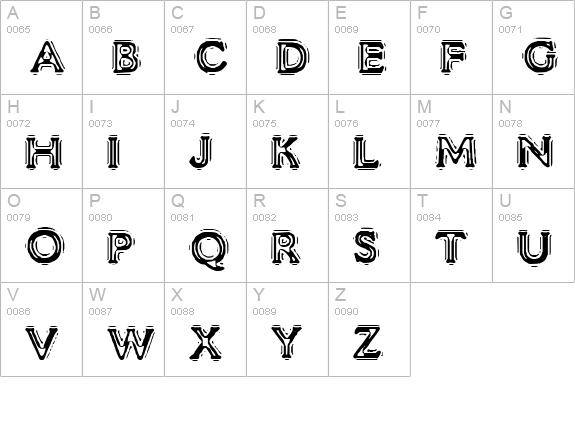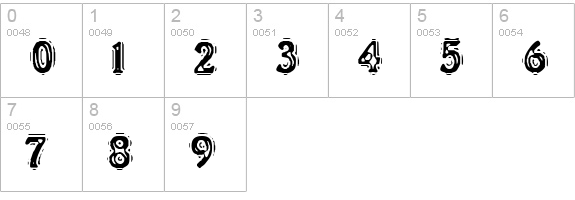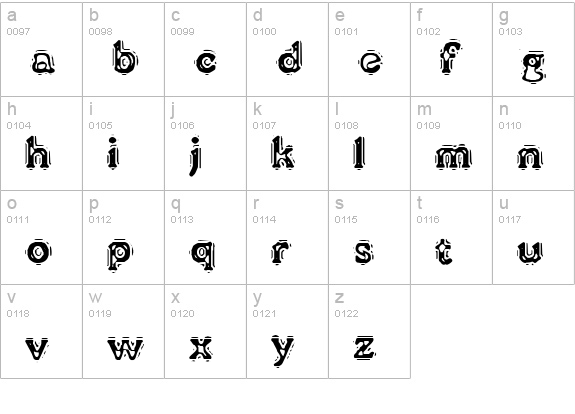
VTC LiquorCrystalDisplay Font Details
Introducing VTC LiquorCrystalDisplay font, a mesmerizing and captivating typeface that is sure to make your designs sparkle with elegance and sophistication. This exquisite font features a stunning crystalline effect, adding a touch of glamour to any project. VTC LiquorCrystalDisplay font is truly a work of art, meticulously crafted to bring a unique and enchanting aesthetic to your designs. Its intricate details and sharp edges create a sense of luxury and refinement, making it perfect for logos, headings, invitations, and more. But what sets VTC LiquorCrystalDisplay font apart is not only its exceptional design, but also its availability for free. Yes, you heard it right! This remarkable font is freely available to download at FontsMarket.com. Now, you can elevate your creative endeavors without breaking the bank. Whether you're a professional designer or a passionate hobbyist, VTC LiquorCrystalDisplay font offers endless possibilities for your projects. Its versatility allows it to be used in various contexts, from fashion and beauty to luxury brands and high-end products. With VTC LiquorCrystalDisplay font, you can effortlessly add a touch of glamour and sophistication to your designs. Its captivating presence will leave a lasting impression on your audience, ensuring that your message is conveyed with style and grace. So why wait? Download VTC LiquorCrystalDisplay font for free today at FontsMarket.com and unlock a world of elegance and charm for your design projects. Don't miss out on this incredible opportunity to enhance your creations and make them truly shine.